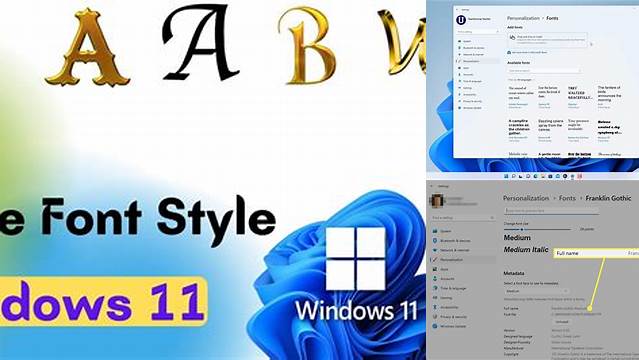
Change Fonts Windows 11 Pro: A Step-by-Step Guide
Hey guys! Ever felt like your Windows 11 Pro interface could use a little personal touch? One of the easiest ways to customize your experience is by changing the system fonts. Whether you're looking for improved readability, a fresh aesthetic, or just want to express your unique style, Windows 11 Pro offers several ways to tweak your fonts. This guide will walk you through everything you need to know to change fonts in Windows 11 Pro, making your digital environment truly yours.
Why Change Fonts in Windows 11 Pro?
Before we dive into the how-to, let’s quickly discuss why you might want to change fonts in the first place. The default font in Windows 11, Segoe UI, is clean and modern, but it might not be everyone's cup of tea. Some people find it too generic, while others may have difficulty reading it due to its size or weight. Customizing your fonts can significantly improve readability, especially if you spend long hours staring at your screen. A more legible font can reduce eye strain and make your work more comfortable.
Beyond readability, changing fonts allows you to inject some personality into your system. Your computer is a tool, but it's also a reflection of your style. By choosing fonts that resonate with you, you can create a more enjoyable and engaging computing experience. Whether you prefer a classic serif font like Times New Roman, a sleek sans-serif like Arial, or something more unique and decorative, Windows 11 Pro gives you the flexibility to experiment and find what works best for you. Furthermore, changing system fonts can be beneficial for users with visual impairments. Windows 11 Pro includes accessibility features that allow you to increase font size and choose fonts that are easier to read, such as those with thicker strokes or clearer letterforms. By customizing fonts, you can create a more accessible and user-friendly computing environment for everyone.
Methods to Change Fonts in Windows 11 Pro
Alright, let's get to the nitty-gritty. There are a few different methods you can use to change fonts in Windows 11 Pro. We’ll cover the most effective techniques, so you can choose the one that best suits your needs and technical comfort level. We'll explore using the Registry Editor, which offers the most comprehensive control, and alternative methods that are simpler but may have limitations. By the end of this section, you'll have a clear understanding of how to modify fonts and tailor your system's appearance to your preferences. So, let's jump right into the first method and start customizing your fonts!
Method 1: Using the Registry Editor
The Registry Editor is a powerful tool that allows you to make deep-level changes to your Windows system. It's like the central nervous system of your OS, so it's crucial to proceed with caution. But don't worry, we’ll guide you through the process step-by-step. Before we start, it’s highly recommended that you back up your registry. This way, if anything goes wrong, you can easily restore your system to its previous state. To back up your registry, type regedit in the Windows search bar, right-click on Registry Editor, and select “Run as administrator.” In the Registry Editor, go to File > Export. Choose a location to save your backup, give it a name, and click “Save.” With that crucial step done, you can confidently follow the steps below to change fonts in Windows 11 Pro.
FontSubstituteskey, you'll create string values that map the fonts you want to replace to the new fonts you want to use. Right-click in the right pane, selectNew > String Value, and enter the name of the font you want to replace exactly as it appears in the “Fonts” key (e.g.,Segoe UI (TrueType)). Double-click the new string value and enter the name of the font you want to use as the replacement (e.g.,Microsoft Sans Serif). - Repeat for Other Fonts: Repeat step 5 for each font you want to change. You might want to change “Segoe UI Bold (TrueType),” “Segoe UI Italic (TrueType),” and other variations to maintain consistency.
- Restart Your Computer: After making the changes, restart your computer for the new fonts to take effect. You might need to log out and log back in if a simple restart doesn’t do the trick.
Changing fonts using the Registry Editor gives you a great amount of control, but it's also the most involved method. Make sure you follow the steps carefully, and always back up your registry before making any changes. If you’re not comfortable with this level of technical detail, don’t worry – we have other methods to explore. The next method provides a simpler way to adjust fonts, albeit with some limitations. Let's move on and see how you can change fonts using accessibility settings!
Method 2: Using Accessibility Settings
If you're looking for a simpler way to adjust fonts, especially for readability purposes, Windows 11 Pro's accessibility settings offer a convenient solution. While this method doesn't allow you to change the system-wide font for every element, it provides a straightforward way to make text larger and easier to read across many applications. This can be particularly helpful for users with visual impairments or anyone who prefers a more legible interface. It’s a less technical approach compared to using the Registry Editor, and it’s perfect for quick adjustments.
Changing fonts in Windows 11 Pro is a fantastic way to personalize your computing experience and improve readability. Whether you opt for the comprehensive Registry Editor method, the simpler accessibility settings, or application-specific customizations, the power to tailor your text display is in your hands. Remember to back up your registry before making changes, and don’t hesitate to experiment with different fonts until you find the perfect fit. By following the steps outlined in this guide, you can create a more comfortable, accessible, and visually appealing computing environment that truly reflects your style and preferences. So go ahead, guys, give your Windows 11 Pro a font makeover and enjoy a fresh, personalized look! This will not only enhance your experience but also make your system uniquely yours. Happy customizing!